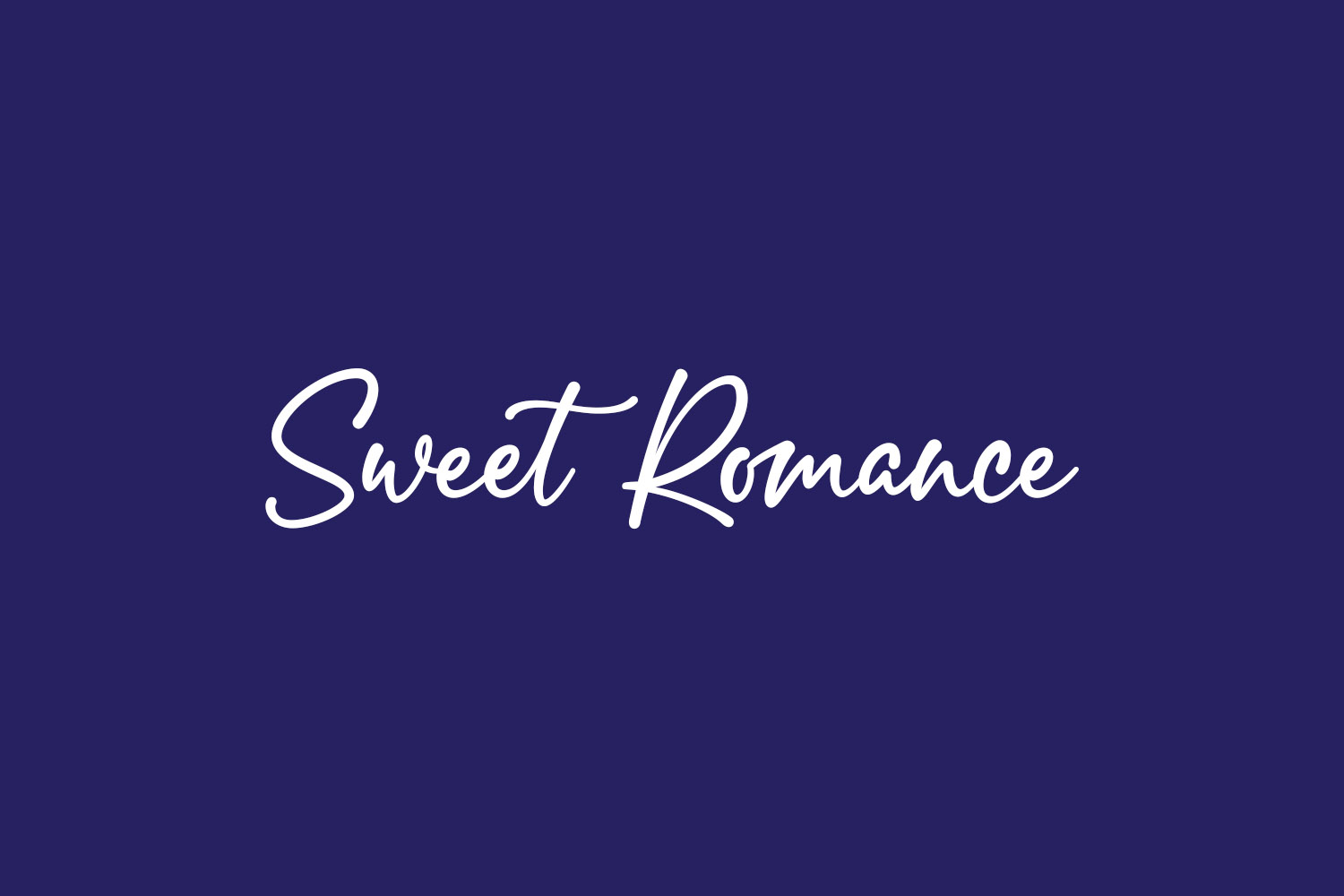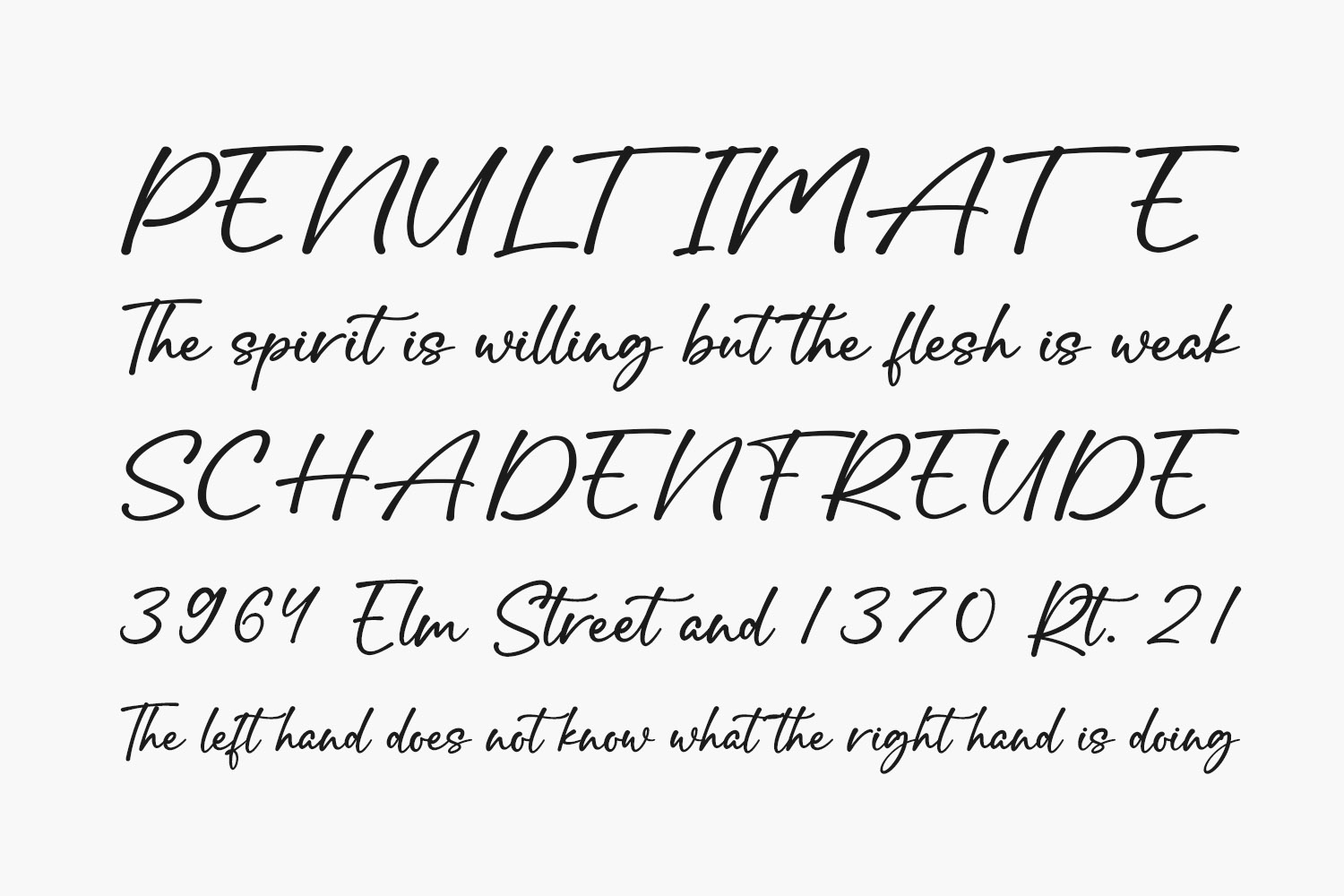
Sweet Romance Free Font is a thin lettered, lovely and fashionable script font. Sweet Romance Free Font is free for personal use only. Please purchase the full version for commercial use.
Designed by Graphix Line Studio